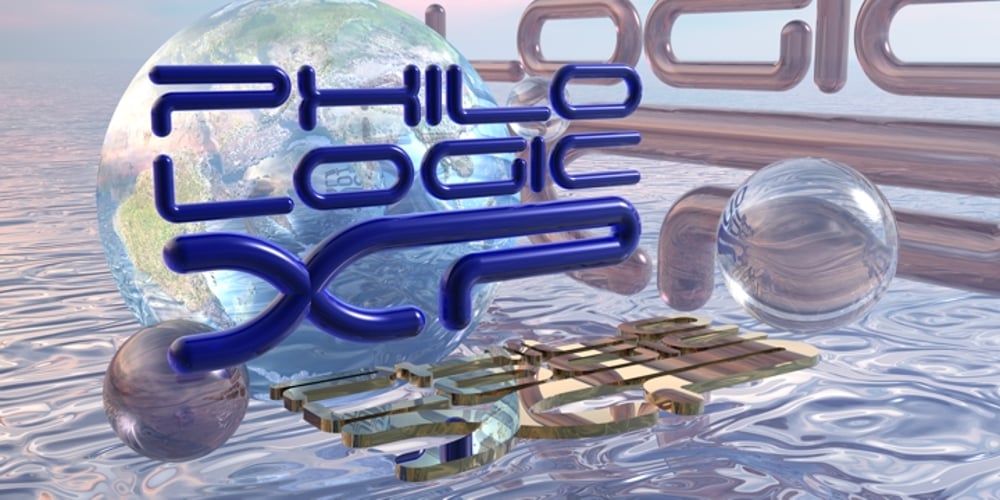
Philo Logic Font Family was designed by Gianni Marcolongo and published by TrueBlue. Philo Logic contains 3 styles and family package options. High-impact, extremely futuristic font family. Suitable for underlining the modern and innovative character of the subject of your project.